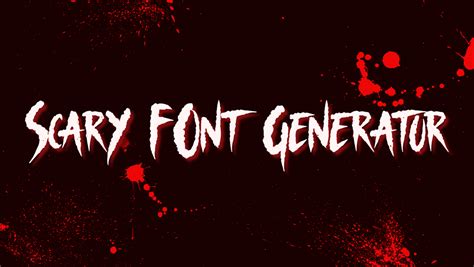
20+ Best Scary Fonts for Horror Themed Designs (Free & Pro)
Horror Font Generator. Web it converts normal text into creepy text with all sorts of weird and distorted markings (ll̵̜̈́i̵̙̽k̶͚̎ȅ̷͇ ̷̙̈t̸̙̃h̸͙̓į̴͗s̵̺̿). Ready to personalize and share in facebook and twitter.
20+ Best Scary Fonts for Horror Themed Designs (Free & Pro)